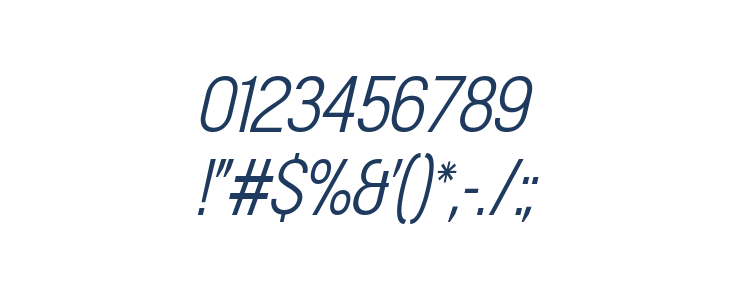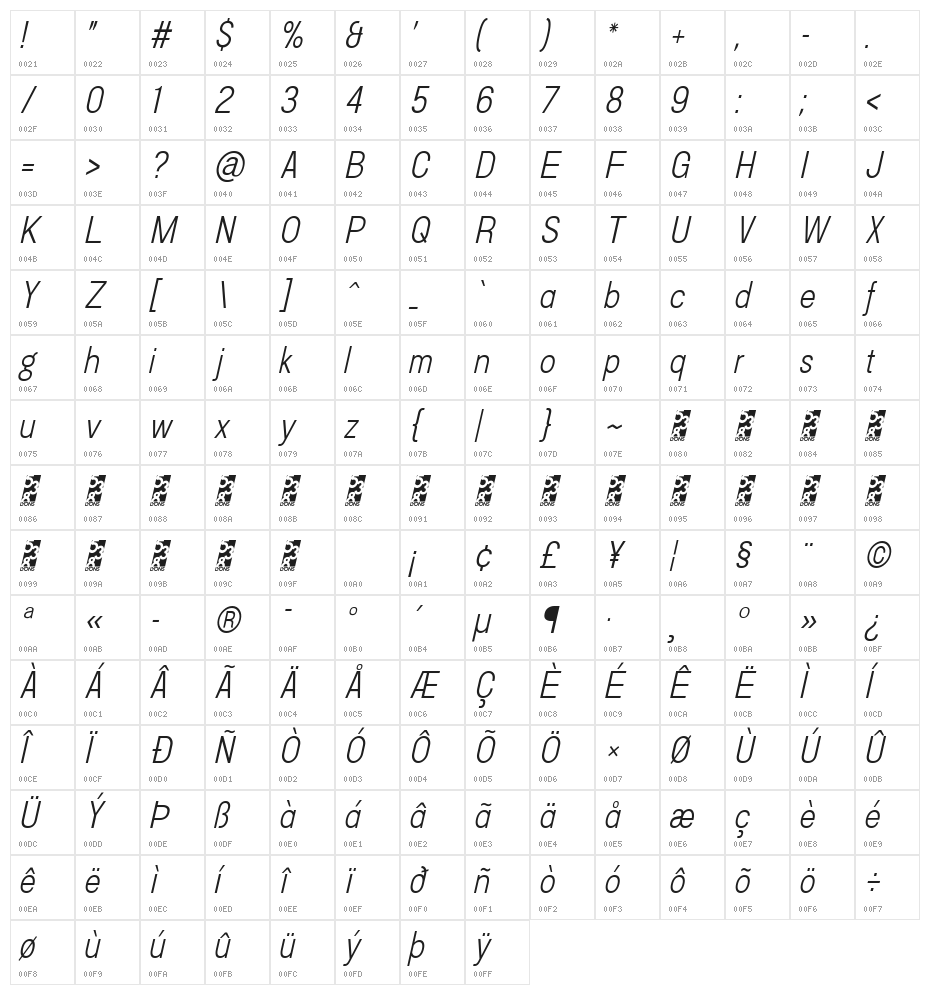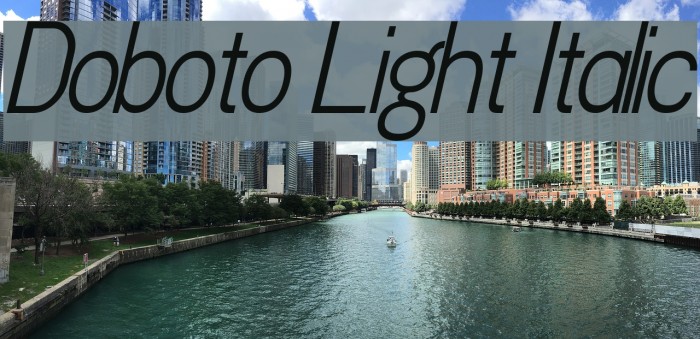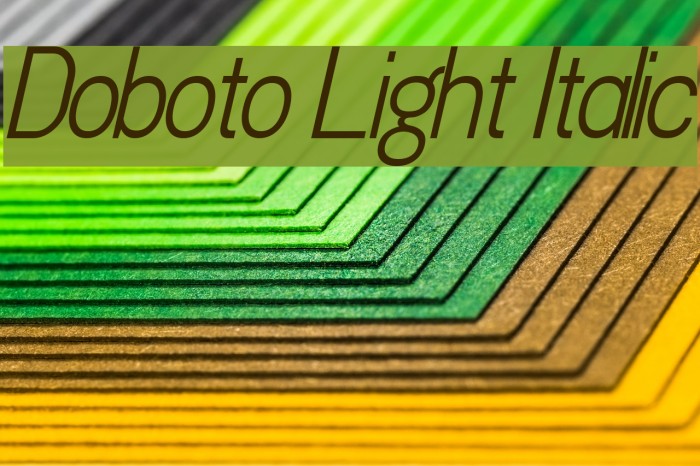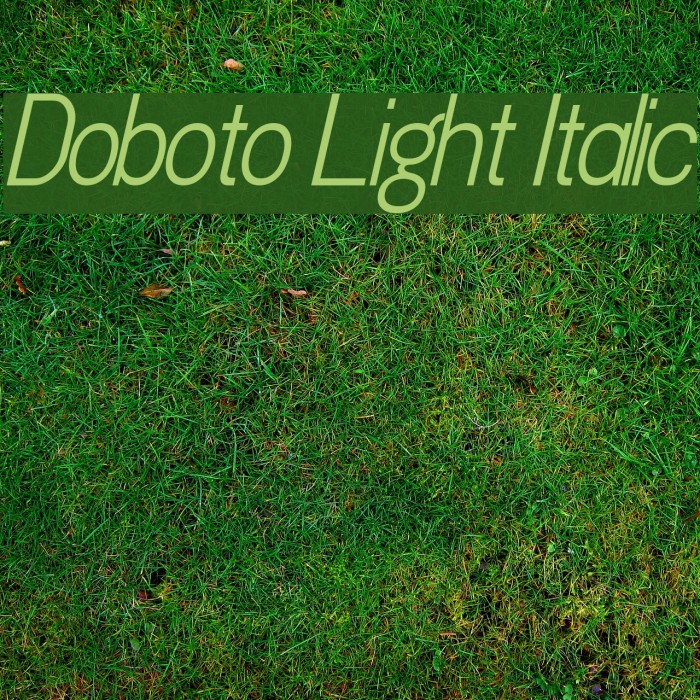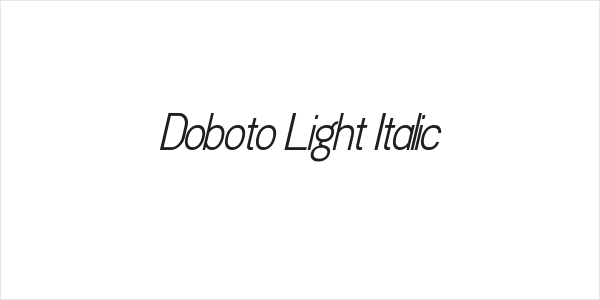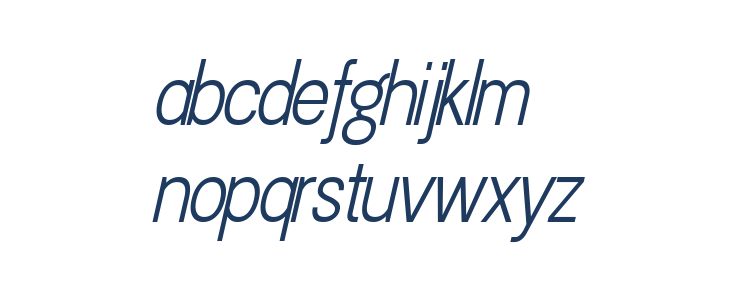
Doboto Light Italic Font
Doboto Light Italic Description
This font features a sleek and modern design with a light weight and italic style. The characters are slightly condensed, giving it a streamlined appearance. The strokes are consistent and smooth, with a medium contrast that adds to its readability. The font's clean lines and elegant curves make it suitable for a variety of design applications. Its italic nature adds a dynamic and sophisticated touch, making it ideal for projects that require a contemporary and stylish look.
| Proposed Projects | Ideal for branding, editorial design, fashion magazines, and modern web design. |